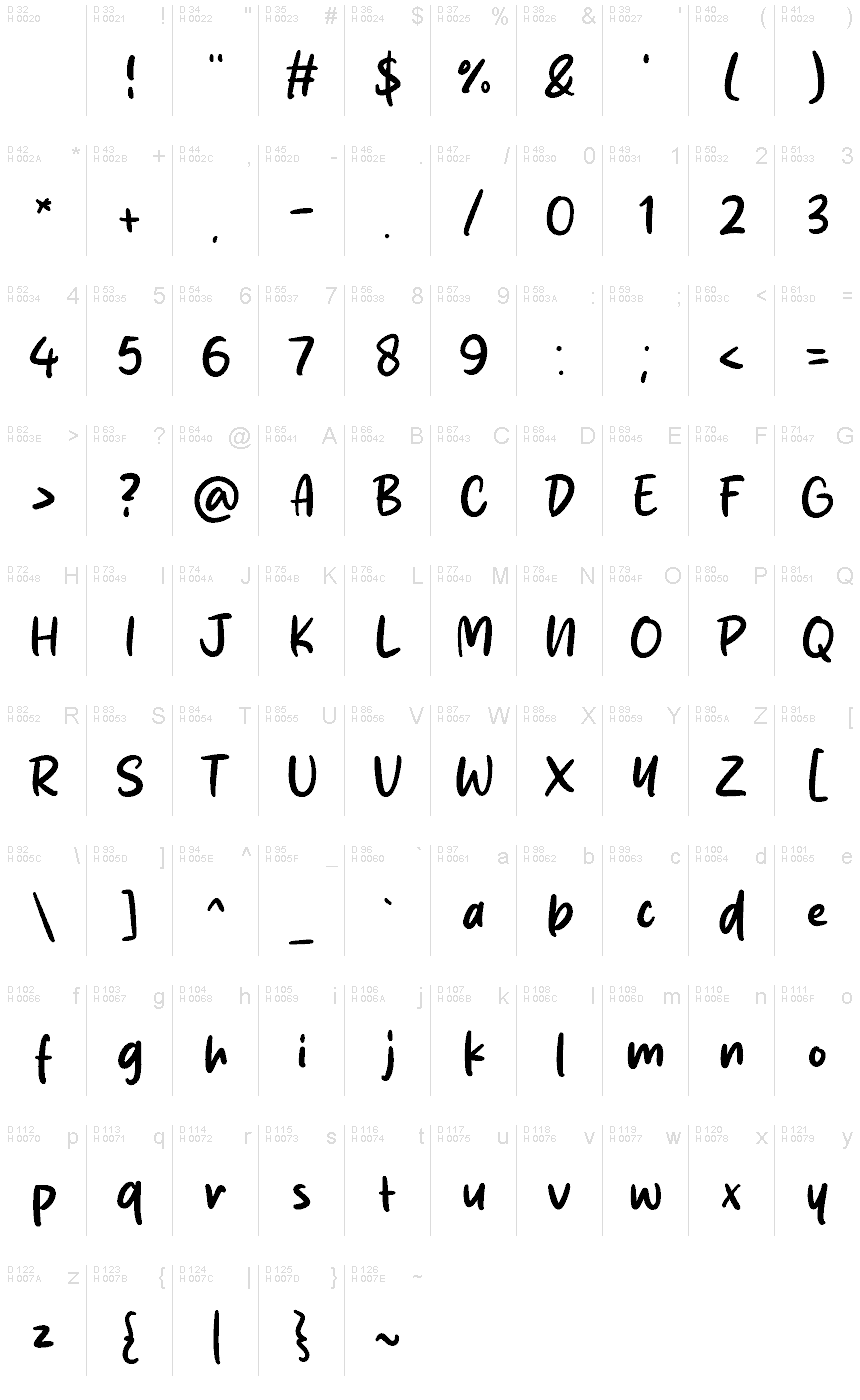
Fresh Season
Fresh Season font is a free handwritten font by MJType with a casual, relaxed, and artistic approach. It reflects the creative flair of lively handwriting where strokes are mildly varied and round edges are crowned for humility. Enjoy that friendly vibe naturally created with its characters in every word carrying that same charming style and simple structure.
Use in cards, labels, stamps, stickers, posters, packaging boxes etc. Apply in blogs and websites or specific sections such as comments or boxes asking for input typed text. Use while editing videos to create stunning headings or aesthetic subtitles on YouTube or other social media platforms.